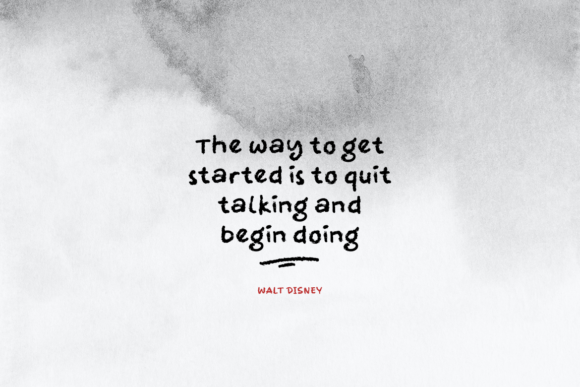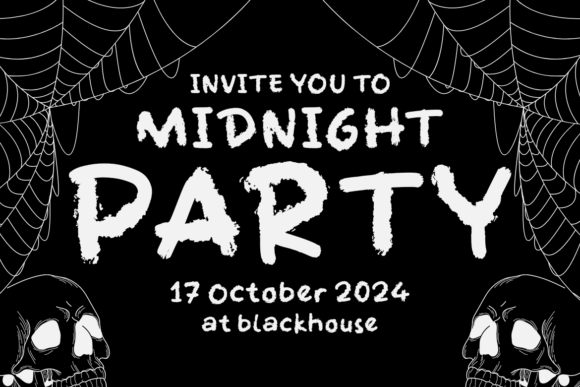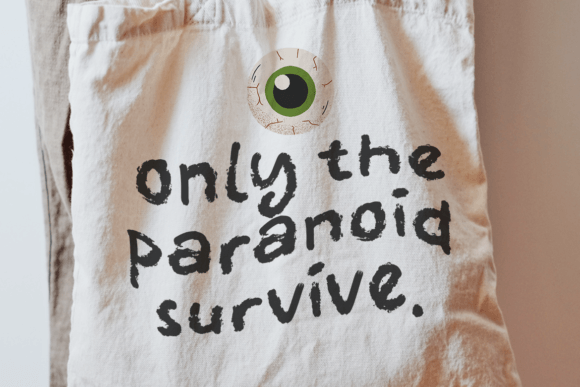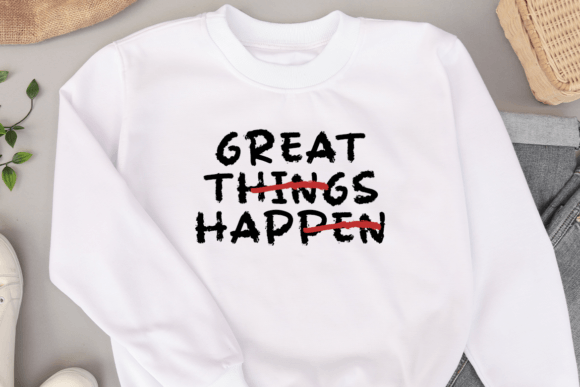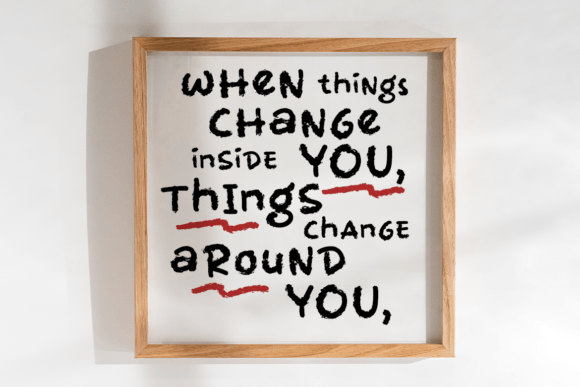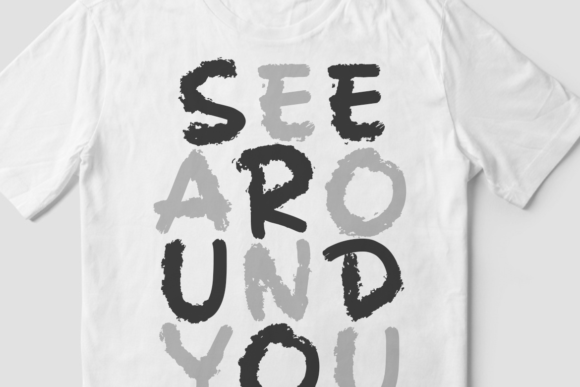
Introduction to Noname Notes Font
Noname Notes is an incredibly unique and interesting display font.
Spooky and a bit creepy, this font will make each of your designs stand out .